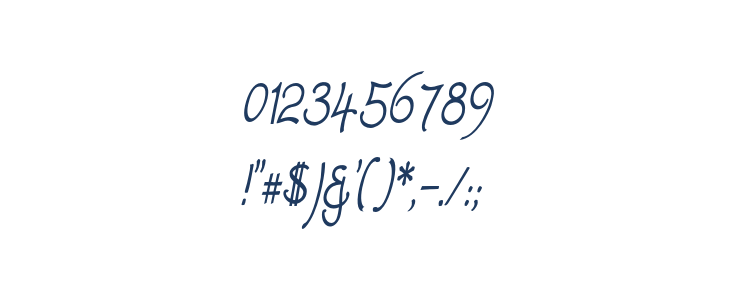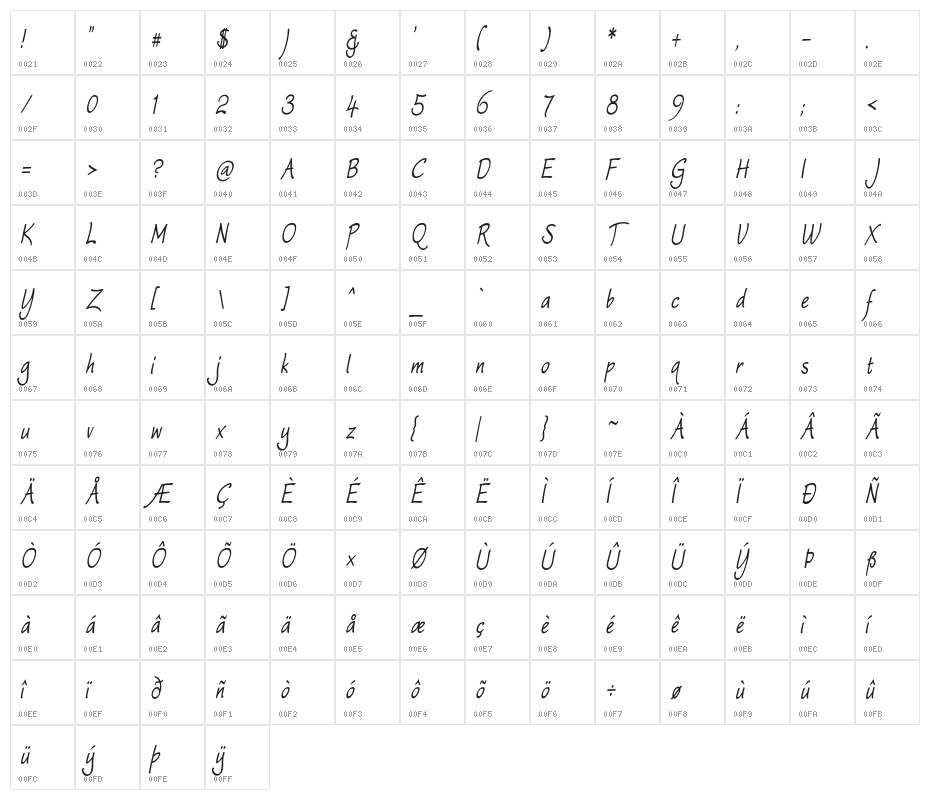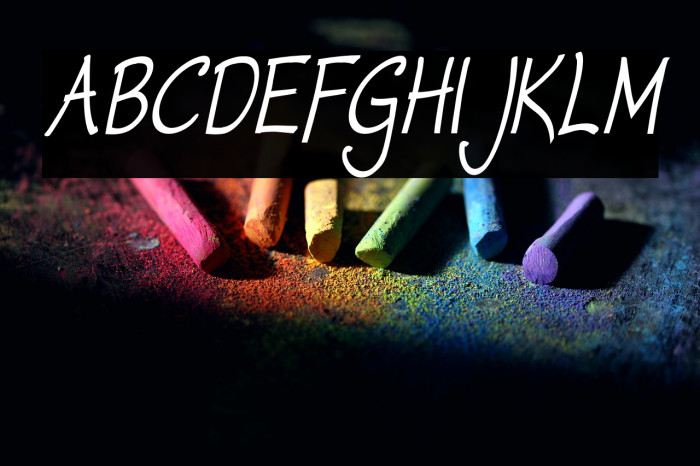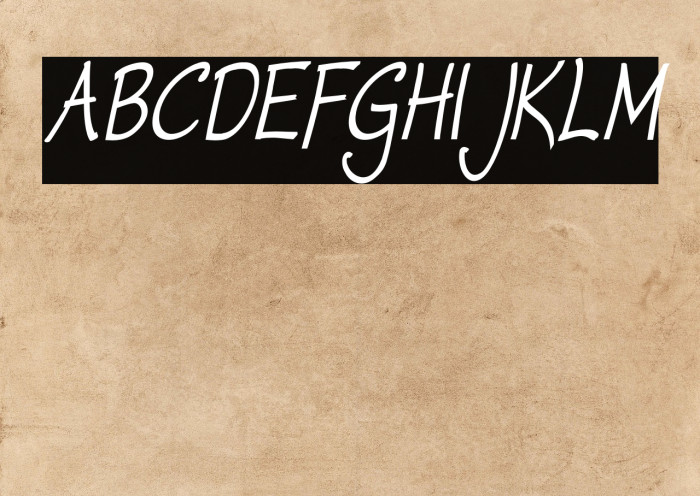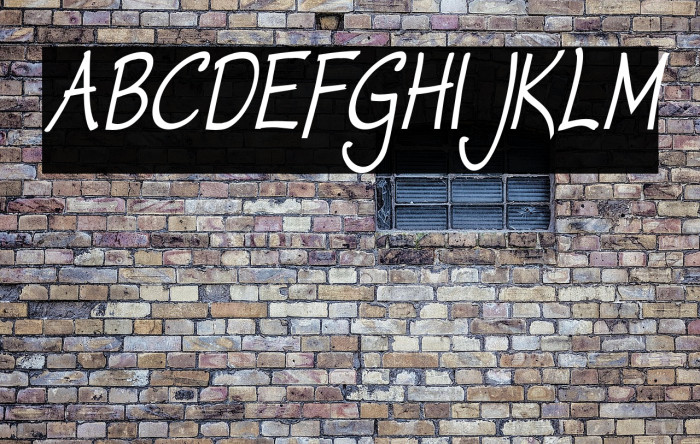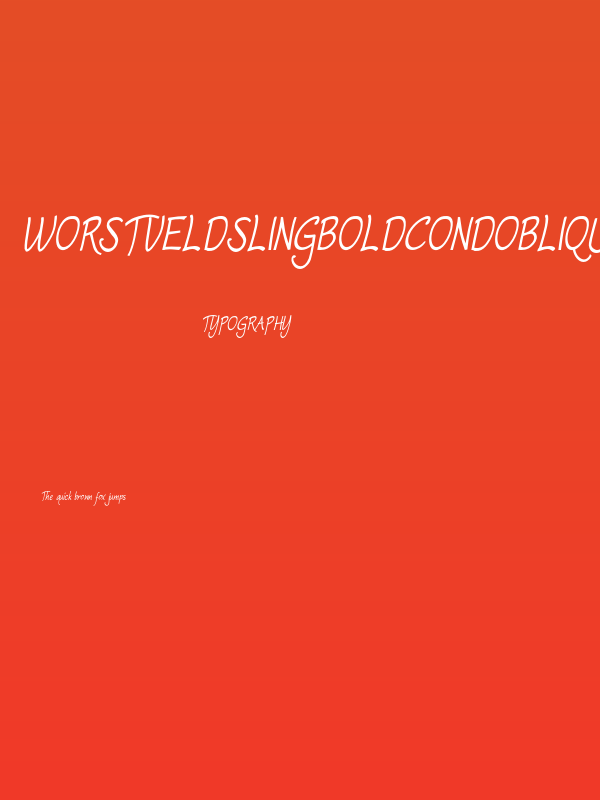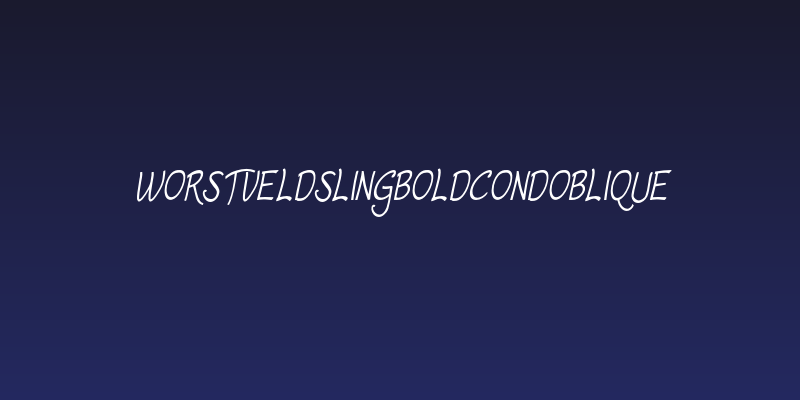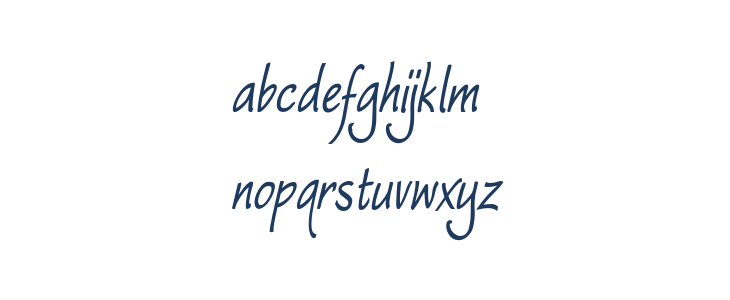
WorstveldSlingBoldCondOblique Font
WorstveldSlingBoldCondOblique Description
This font features a dynamic and energetic style with a handwritten appearance. The letters are slightly slanted, giving it an oblique look, while maintaining a bold presence. The strokes are smooth and flowing, with a condensed width that adds to its compact and efficient design. The uppercase and lowercase letters are well-balanced, and the numbers and special characters are crafted with the same attention to detail. This font's unique style makes it stand out, offering a blend of modern flair and classic handwritten charm.